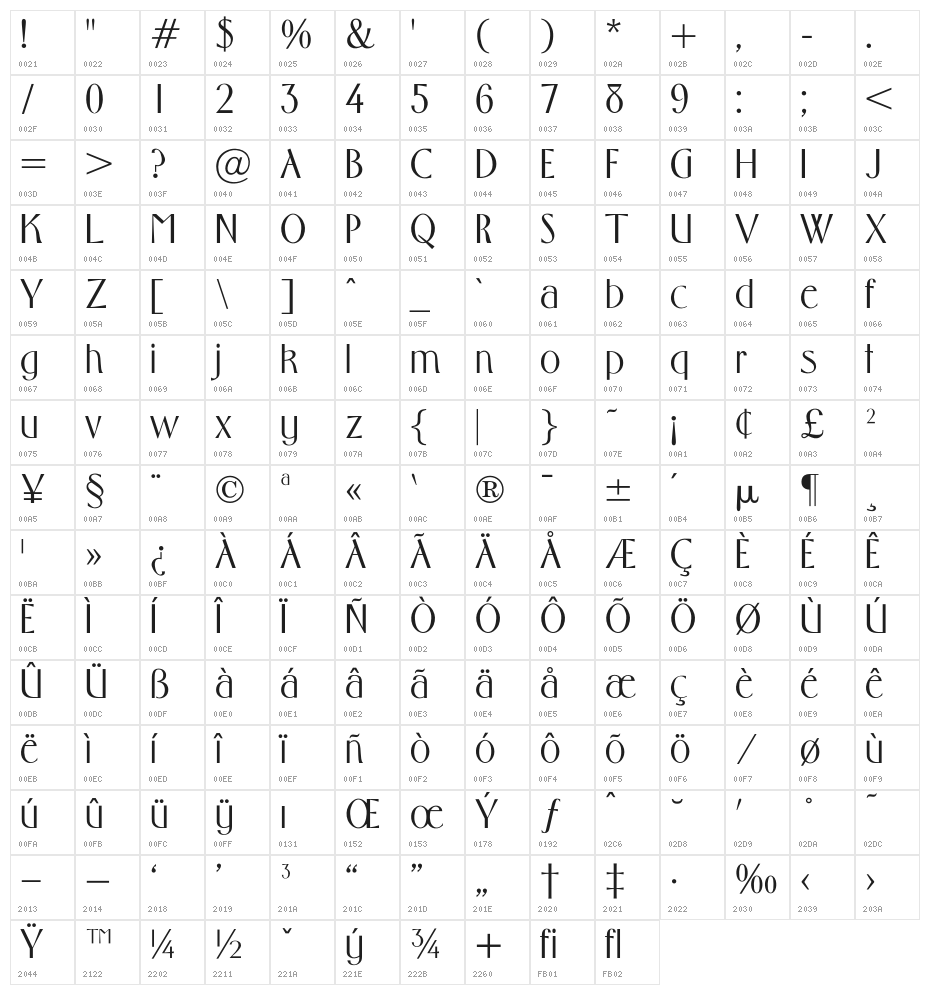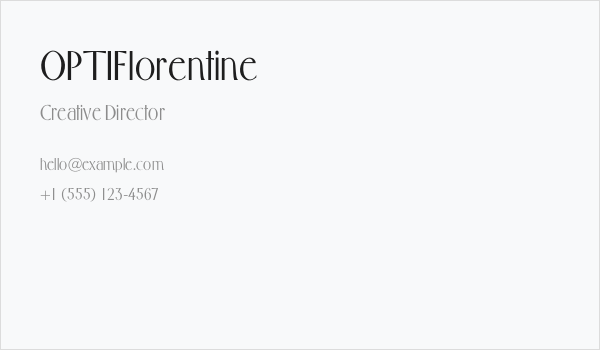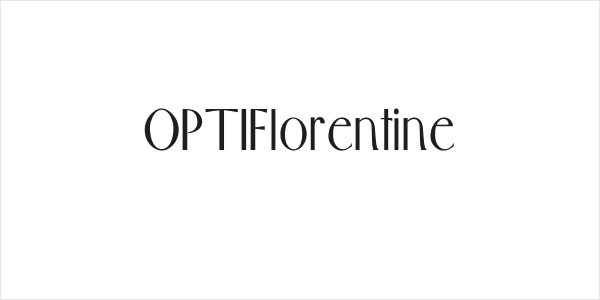
OPTIFlorentine Font
OPTIFlorentine Description
This font features an elegant and sophisticated design with a modern twist. The characters are tall and slender, with a slight curvature that adds a touch of elegance. The uppercase letters have a distinct flair, particularly noticeable in the 'Q' and 'R', which exhibit unique, artistic strokes. The lowercase letters maintain a consistent style, with smooth curves and a harmonious flow. The numerals are bold and clear, ensuring readability. Special characters are designed with the same attention to detail, making them stand out without overpowering the overall aesthetic. This font is perfect for projects that require a refined and stylish look.
| Overall Style | Elegant and sophisticated |
| Proposed Projects | Ideal for luxury branding, editorial design, wedding invitations, and high-end product packaging. |